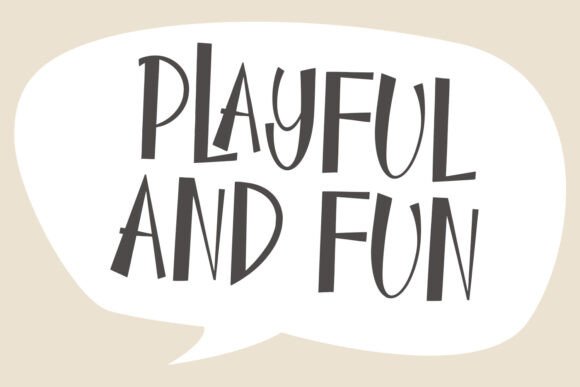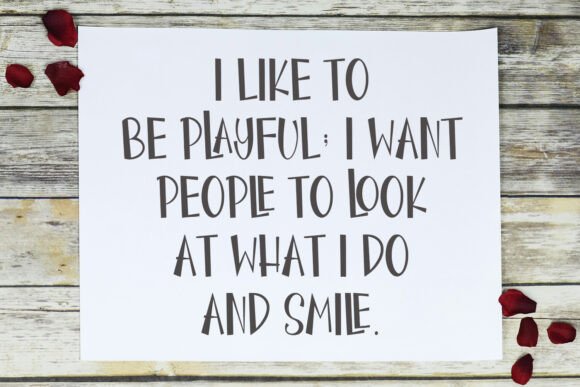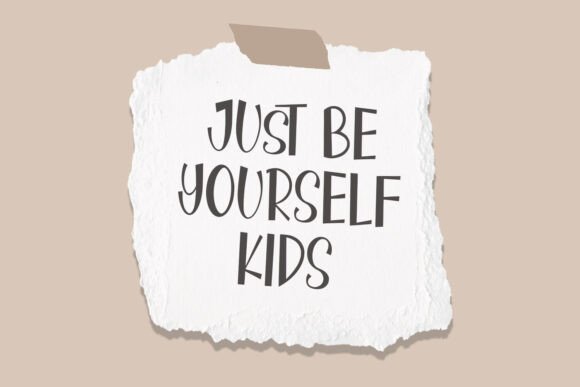
Introduction to Rongkus Font
Do you remember the excitement of discovering a new font that sparks creativity and brings a project to life? For designers, it’s a moment that never gets old. And if you’re looking for a high-quality font to elevate your next design project, you’re in luck. Introducing the Rongkus Font, a fun and quirky display font designed specifically for kids’ content and playful branding.
With its tall, whimsical style and hand-crafted charm, Rongkus Font is the perfect design resource for creative projects that require a touch of personality. Whether you’re working on a children’s book, educational materials, or birthday invites, this lively font is sure to bring a smile to your face and a touch of joy to your design.
Key Features of Rongkus Font
• Unique, hand-drawn design with intricate details and textures
• Supports a wide range of languages, including Latin, Cyrillic, and Greek scripts
Honest Review: Rongkus Font
As a designer, I’m always on the lookout for high-quality design resources to elevate my creative projects. Recently, I stumbled upon the Rongkus Font, and I’m excited to share my honest review with you.
• ✨ Unique and stylish design: The Rongkus Font boasts a distinctive and modern look that can add a touch of sophistication to any project.
• ⚠️ Limited character set: The Rongkus Font has a relatively small character set, which might not be suitable for complex or large-scale projects.
• ⚠️ Limited language support: The font primarily supports Latin-based languages, which might limit its use for designers working with non-Latin scripts.
The Rongkus Font is versatile and can be used in a variety of creative projects, including logos, branding materials, social media graphics, and marketing materials. Its unique design and transparent background make it an ideal choice for designers looking to add a touch of elegance and sophistication to their work.
Alternatives to Rongkus Font
1. Bangers Font
Bangers Font is a high-quality, bold sans-serif font ideal for creative projects that require a playful touch. Its free download makes it a valuable design resource for designers. Use it for headings, titles, or any element that demands attention.
Compared to Rongkus Font, Bangers Font has a more aggressive feel, making it suitable for projects that need a bolder statement. It’s available in both regular and bold weights, offering flexibility for your design needs.
Pacifico Font is a beautiful, high-quality script font perfect for creative projects that require a touch of elegance. Its free download makes it a valuable design resource for designers. Use it for titles, headings, or any element that demands a sophisticated look.